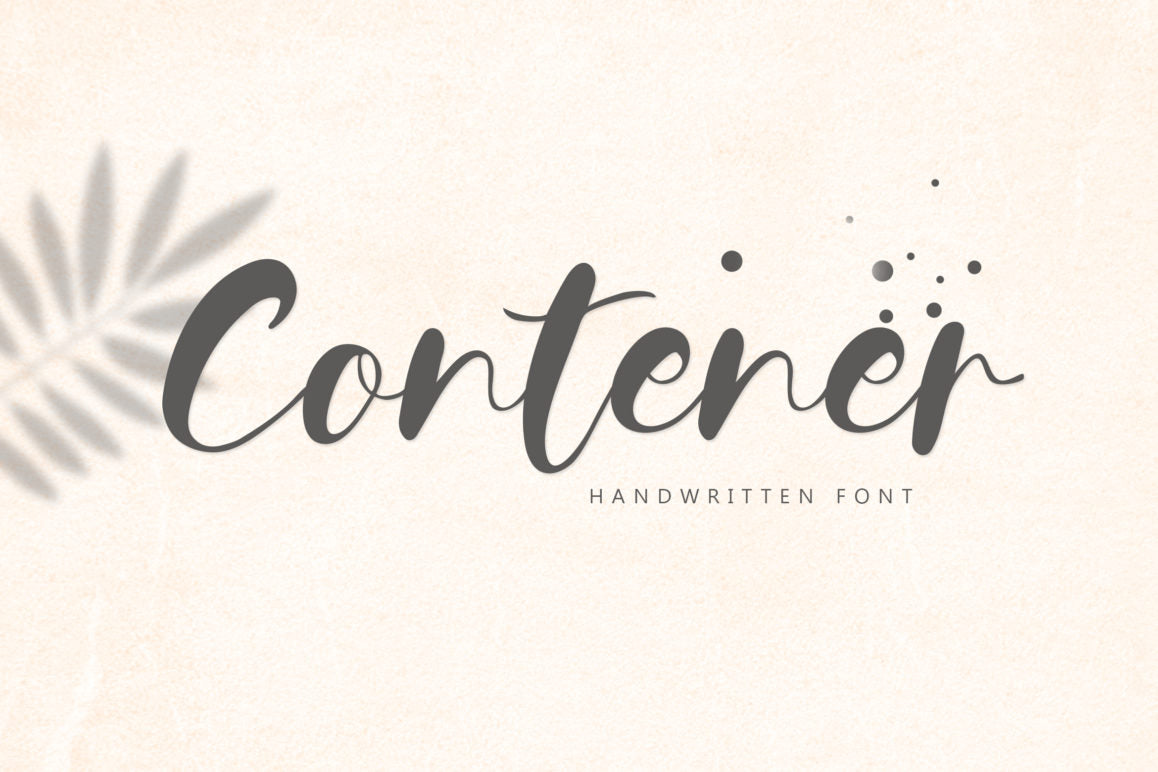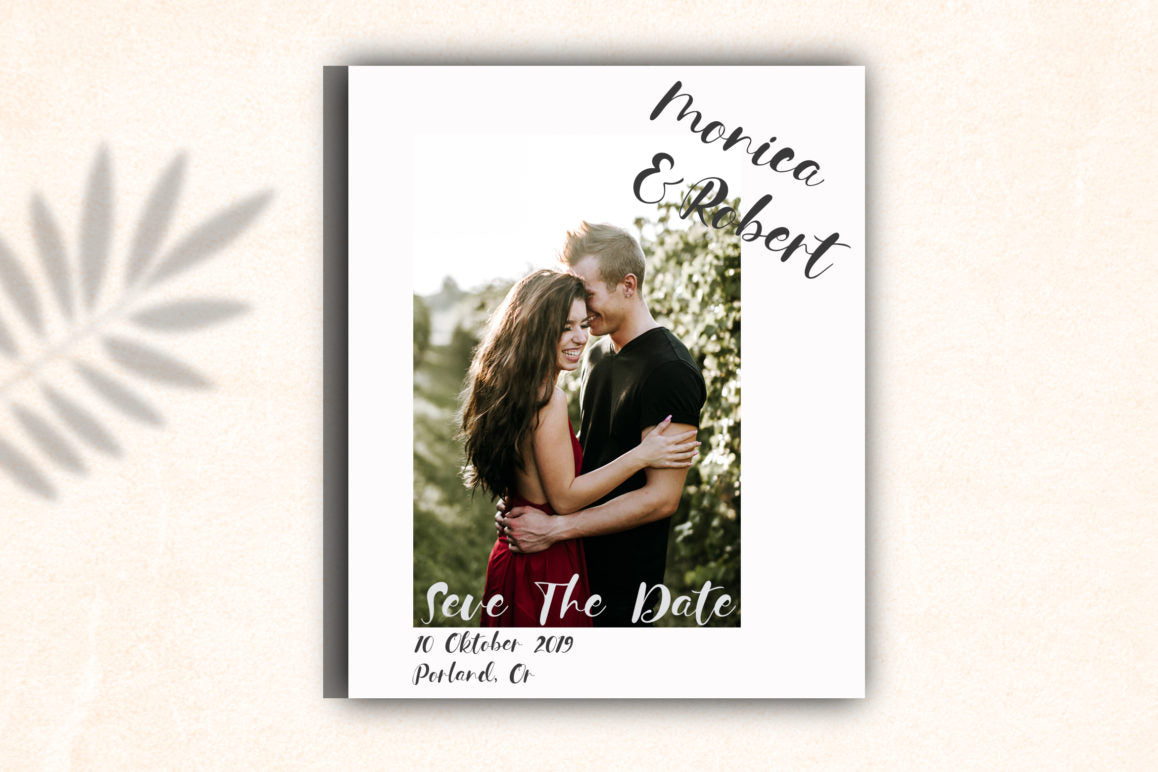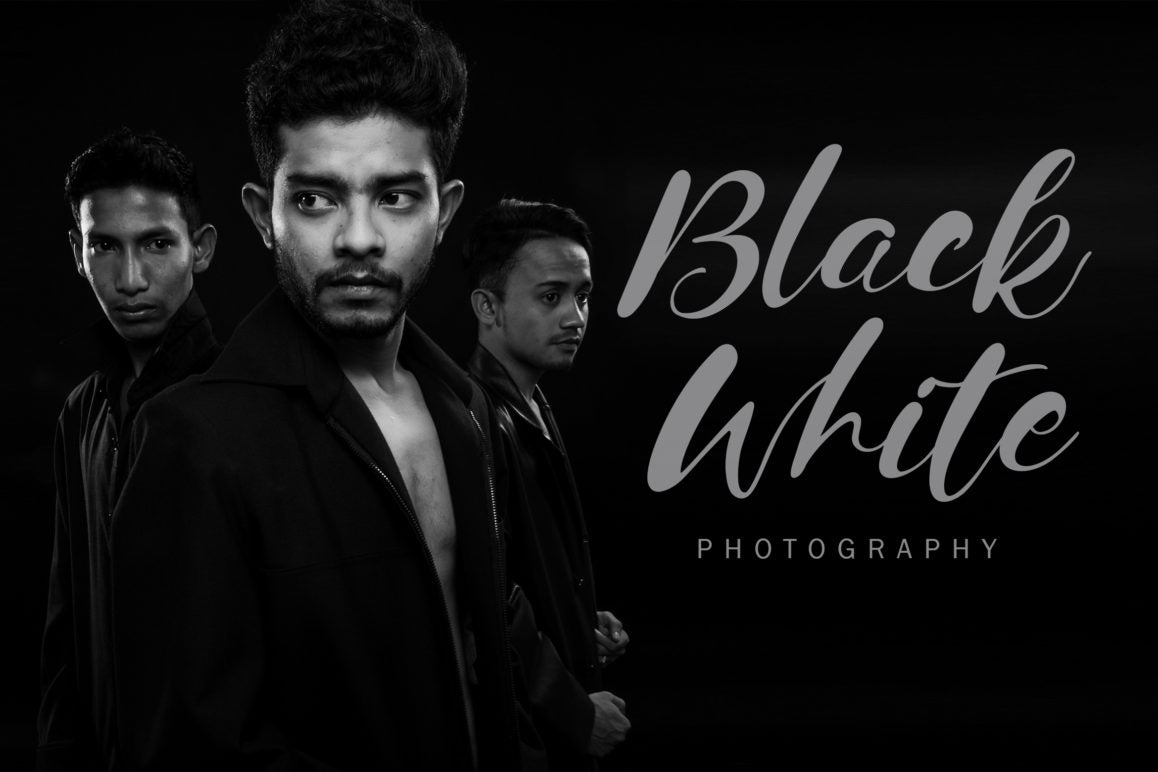
We're glad to feature this gorgeous Contener - Free Handwritting Font. Download this free font from the source of Crella. Easily amaze your audience with this fancy font and make your graphic designs pop up from the crowd.